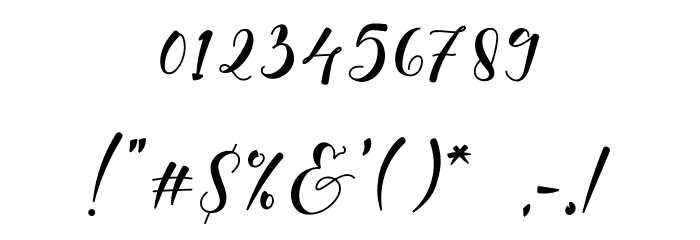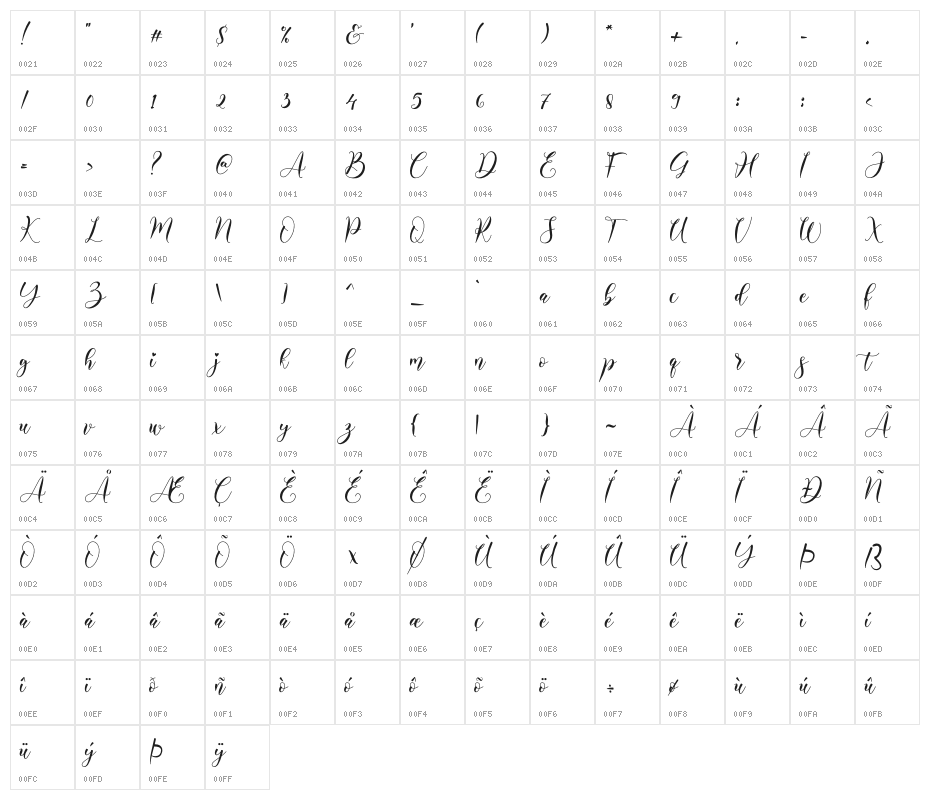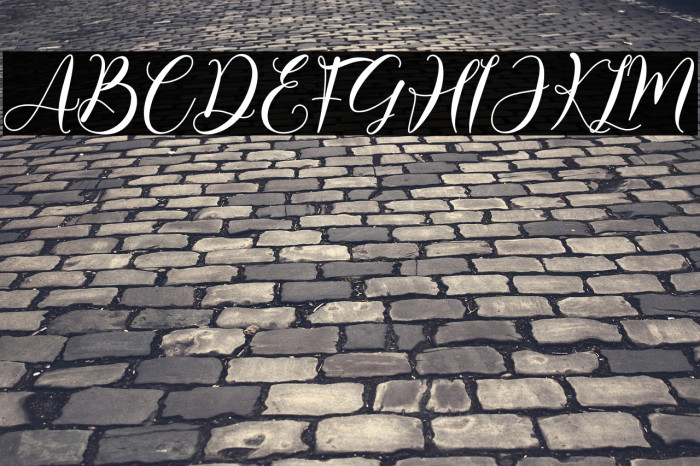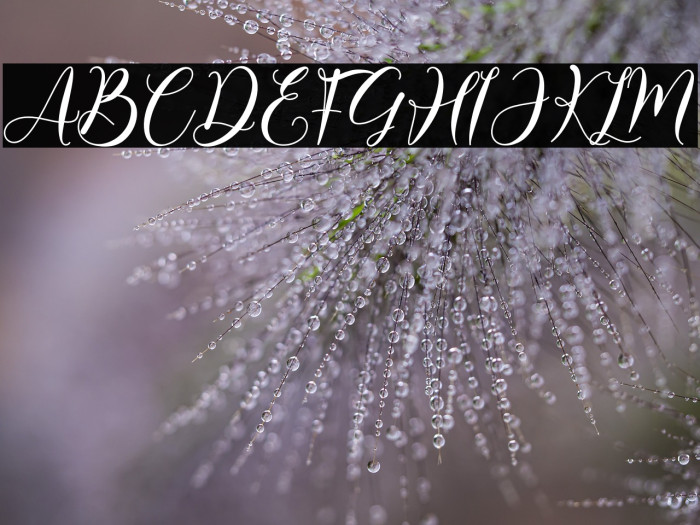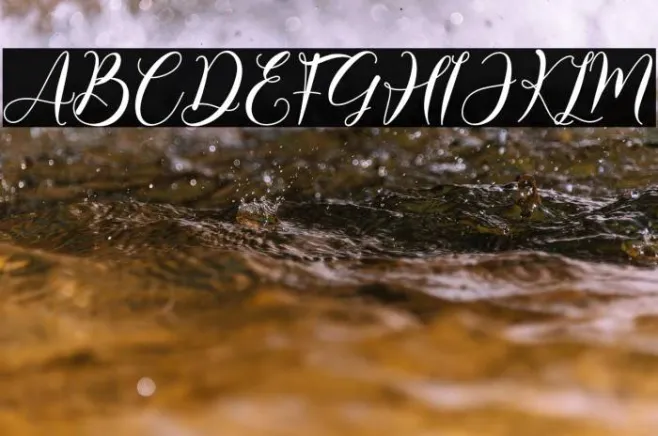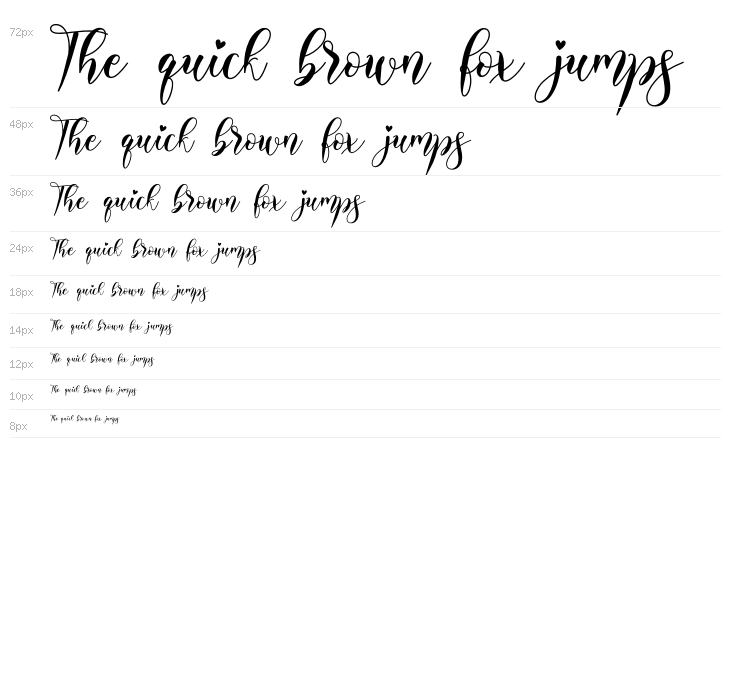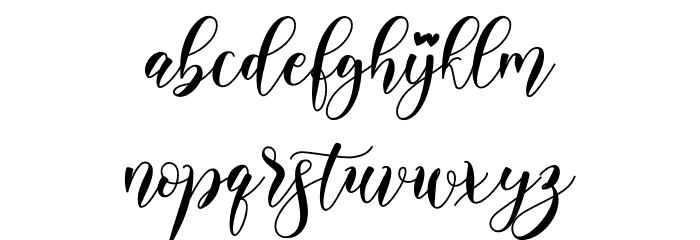
Alyanda Font
Alyanda Description
This elegant script font features flowing, interconnected letters with a calligraphic style that exudes sophistication and grace. The uppercase letters are ornate, with elaborate swashes and loops that add a touch of flair, while the lowercase letters maintain a more restrained yet still decorative appearance. The numerals and special characters are designed to complement the overall aesthetic, ensuring consistency throughout. This font is perfect for projects that require a touch of elegance and refinement, such as wedding invitations, luxury branding, or high-end product packaging.